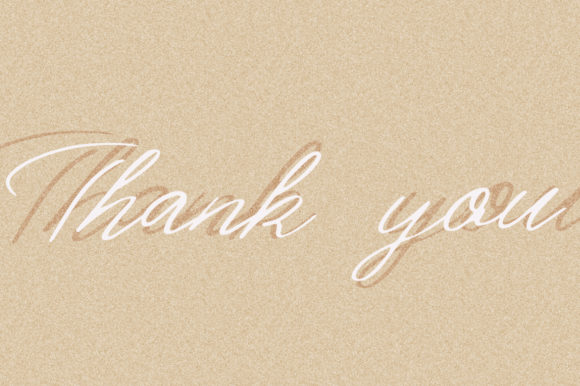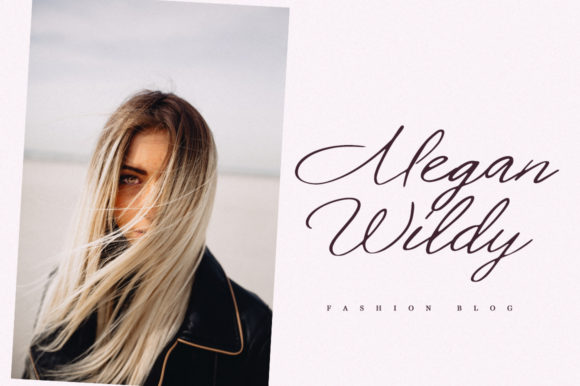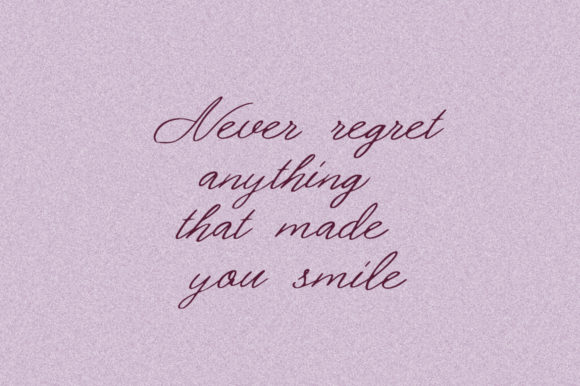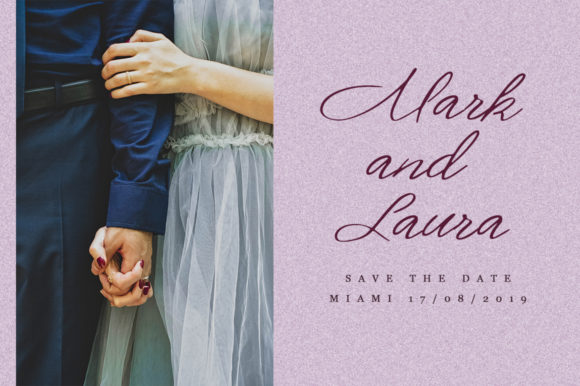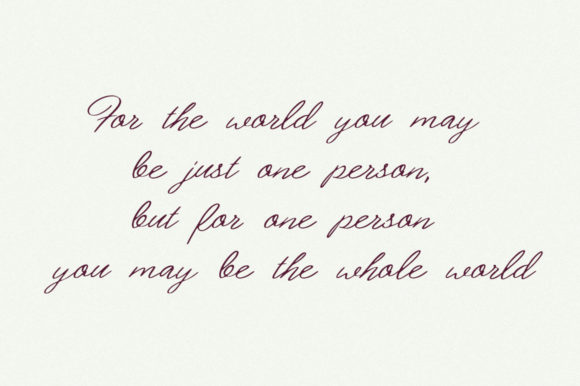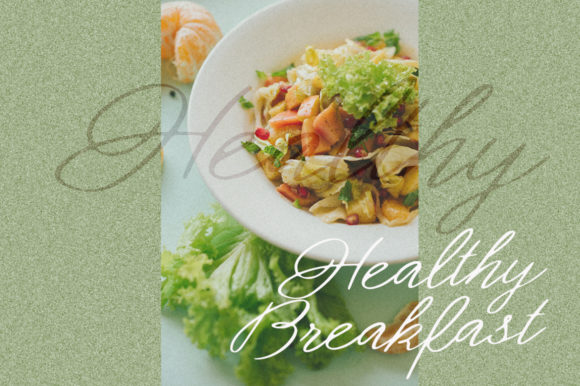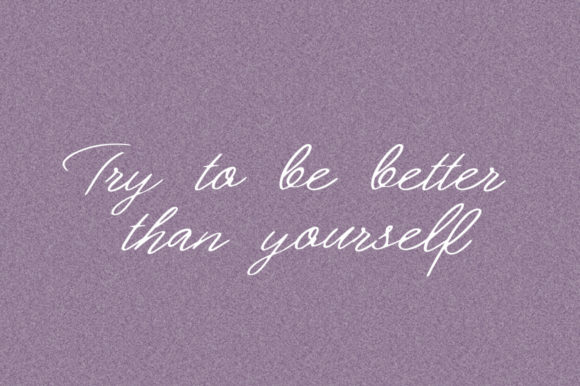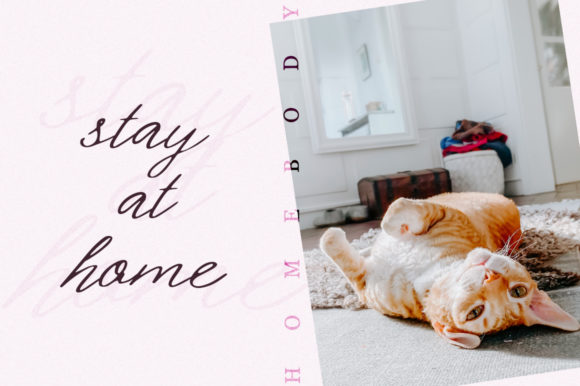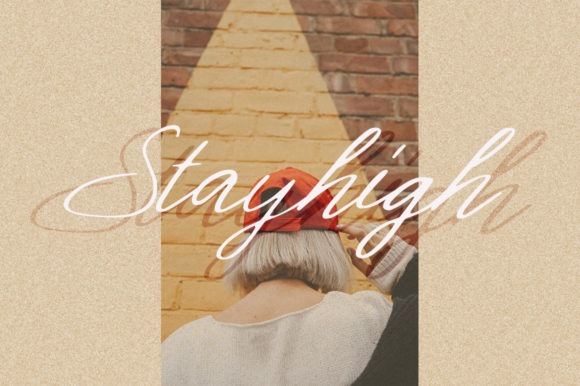
Fomell Font
About Fomell Font
Fomell is a light and cool handwritten font with a distinct sophisticated touch. Fall in love with its effortless beauty!